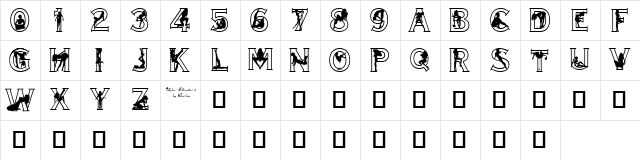
Alpha-Silouettes 2 Expanded Font Preview
Alpha-Silouettes 2 Expanded
Design Context for Alpha-Silouettes 2 Typeface
Alpha-Silouettes 2 is a composed and adaptable typeface that performs quietly and consistently across a wide range of design contexts.